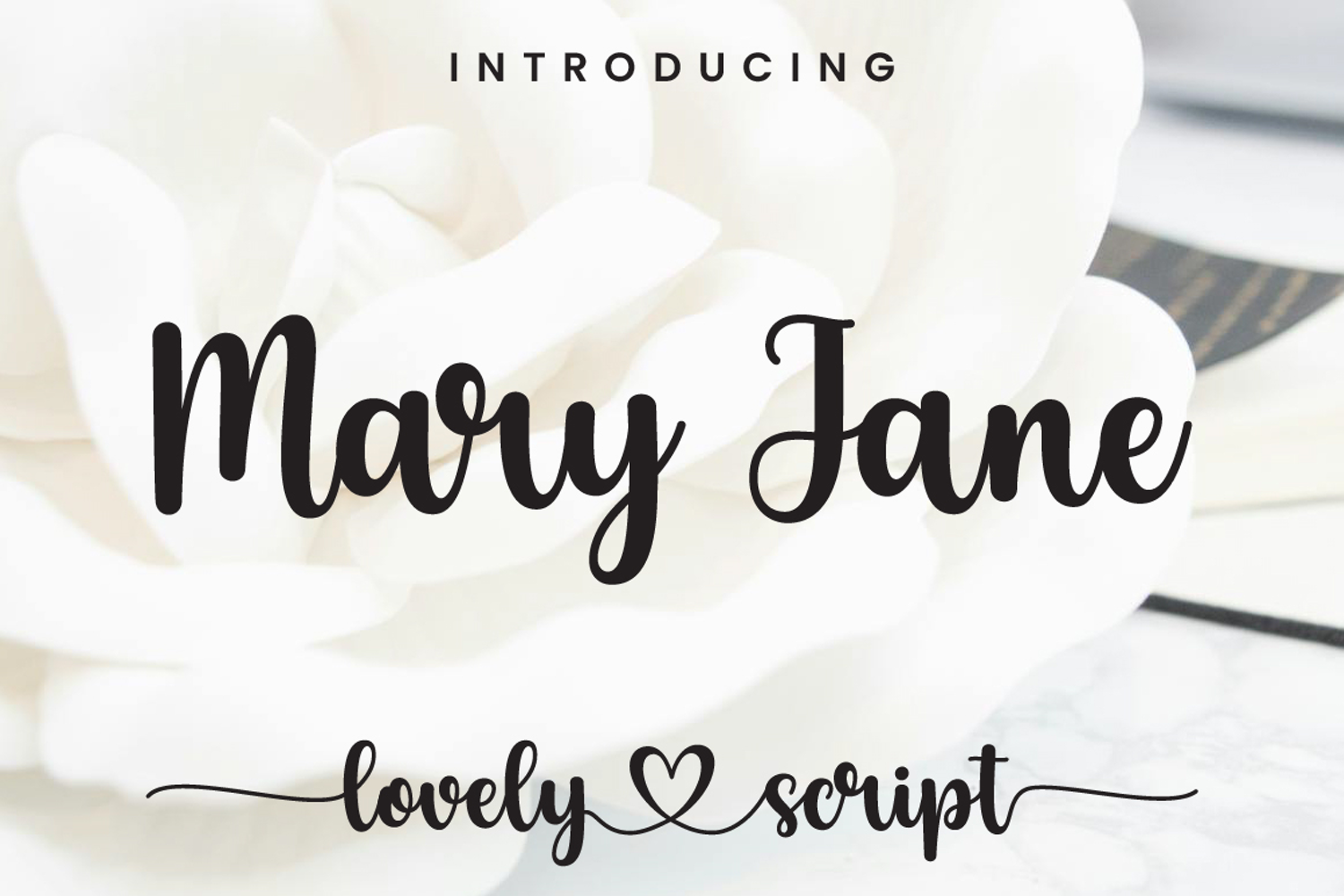
Mary Jane - Lovely Script
Mary Jane
Mary Jane is a modern romantic calligraphy font with smooth handwritten flows. Mary Jane font perfect for logos, wedding stationery, cards, gift designs, photography, watermark, product packaging and handwritten quotes. This font includes 2 lovely stylistic set also full set of uppercase and lowercase letters, multilingual symbols, numerals and punctuation and ligatures. This font is PUA encoded which means you can access all of the glyphs and swashes with ease!